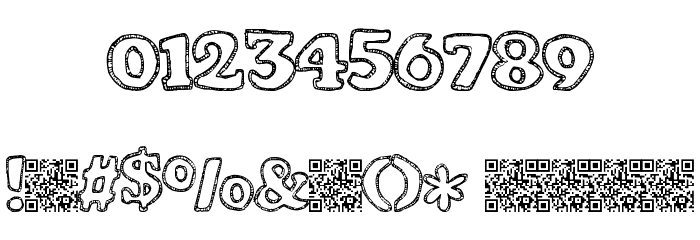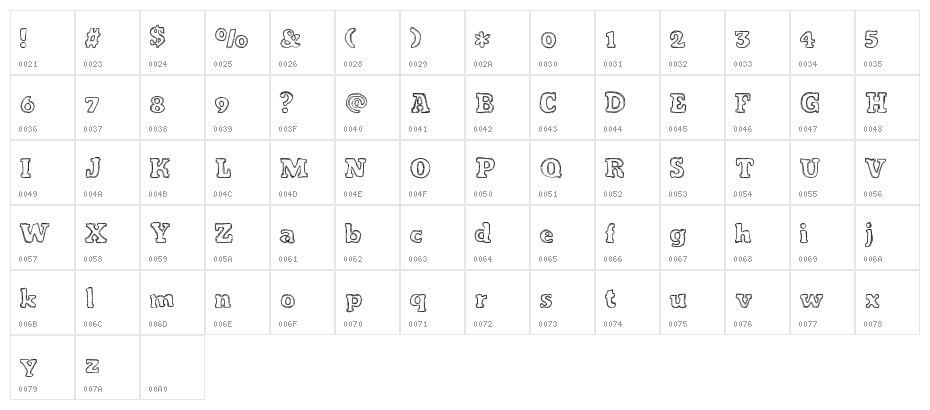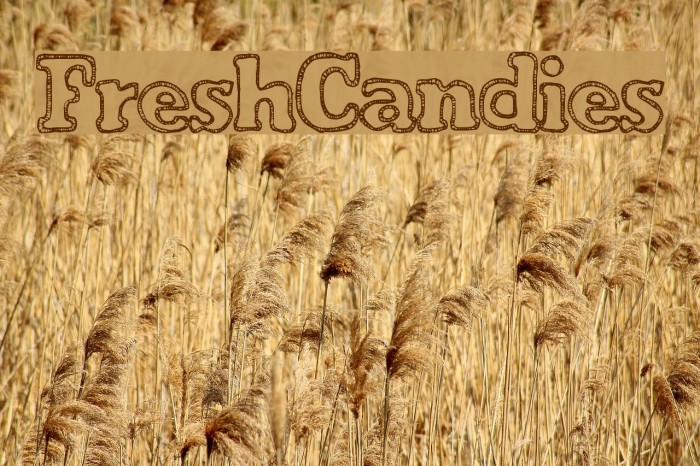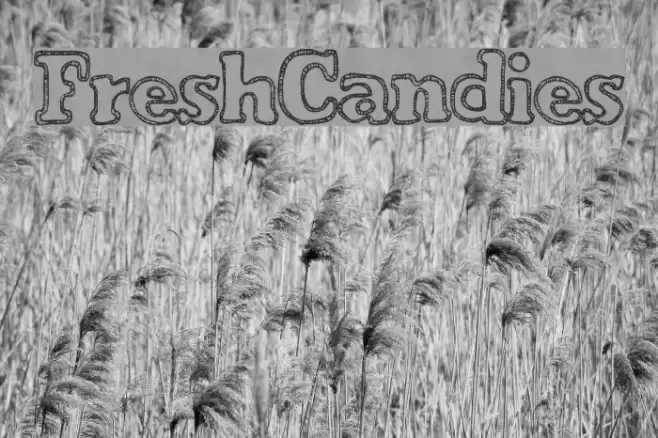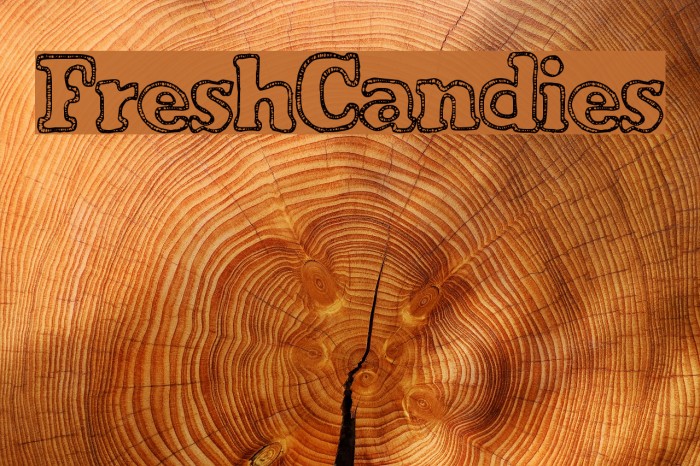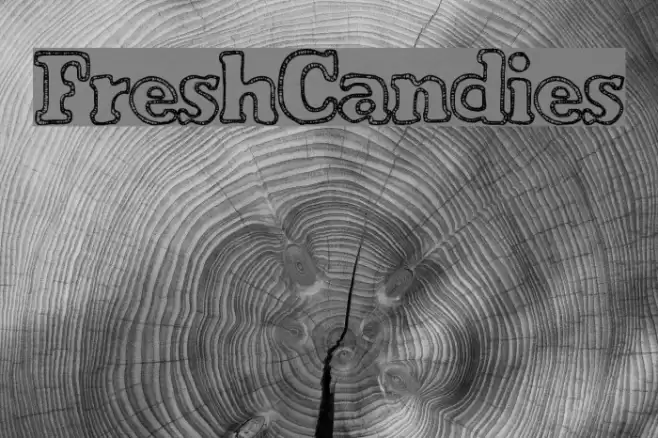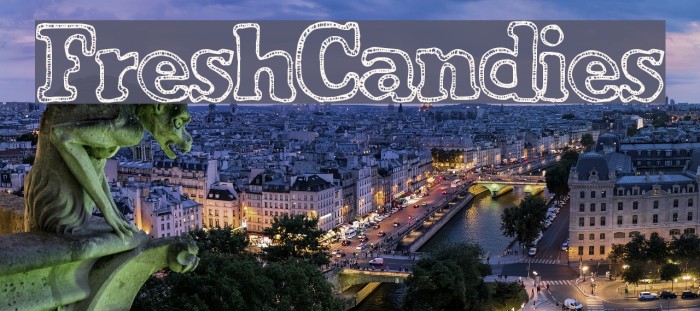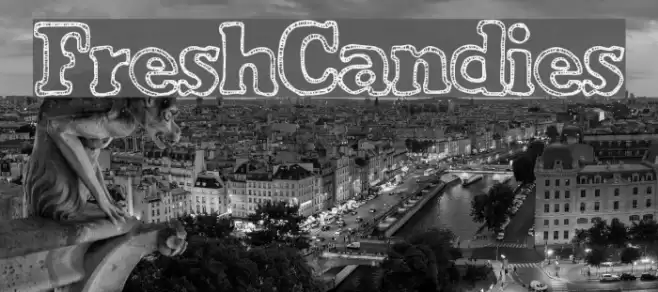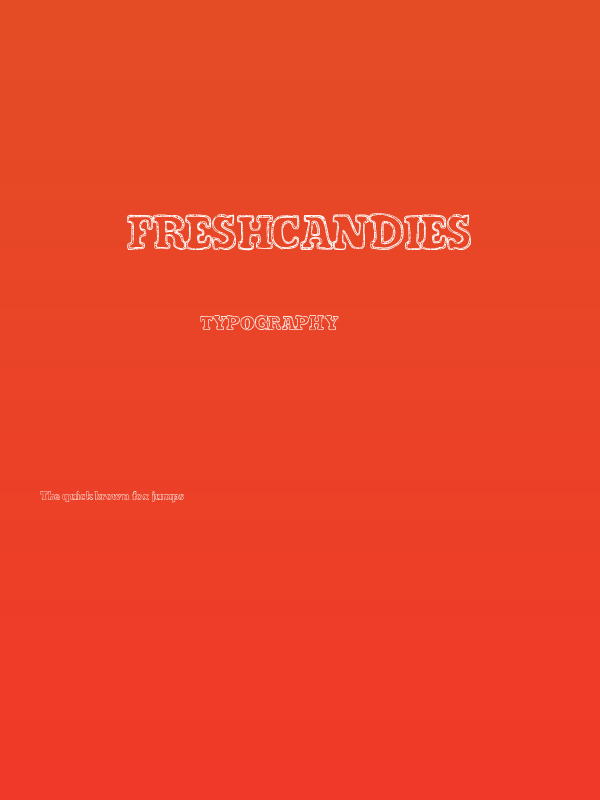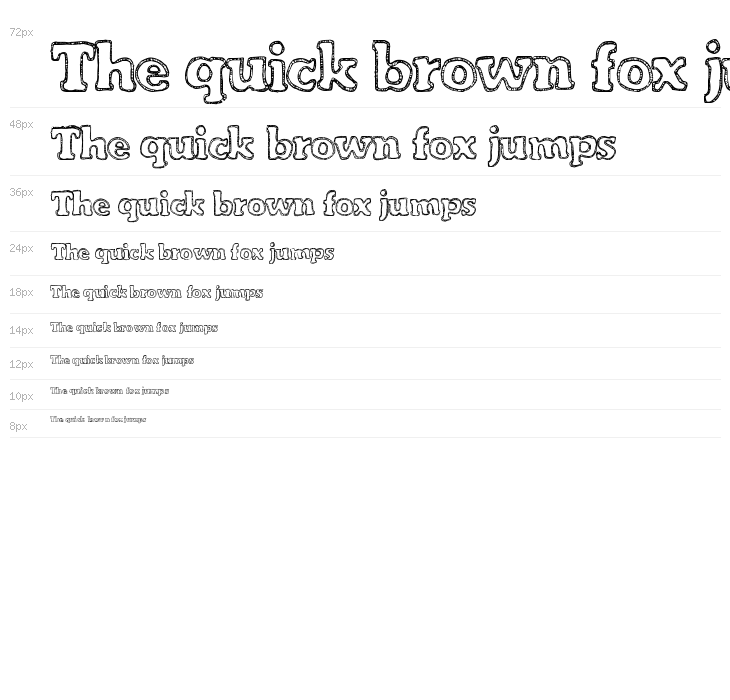
FreshCandies Font
FreshCandies Description
This playful and decorative font features a bold, outlined style with a whimsical, hand-drawn appearance. The characters are rounded and have a slightly irregular shape, giving them a friendly and approachable feel. The uppercase and lowercase letters maintain a consistent style, with the uppercase being slightly more pronounced. Numbers and special characters follow the same playful design, making the font versatile for various creative projects. Its unique outline adds depth and interest, making it stand out in any design.
| Overall Style | Playful, Whimsical, Decorative |